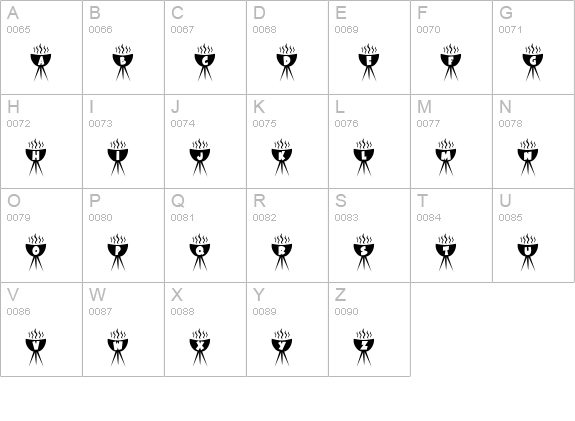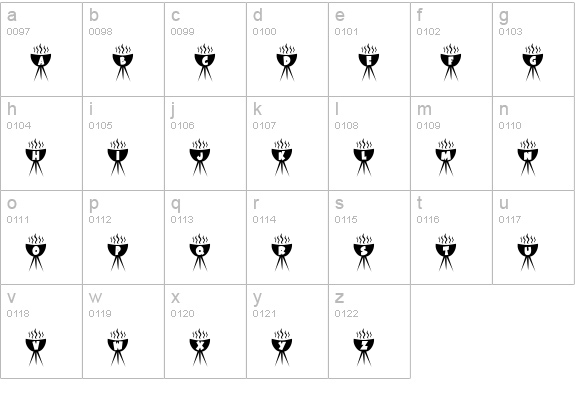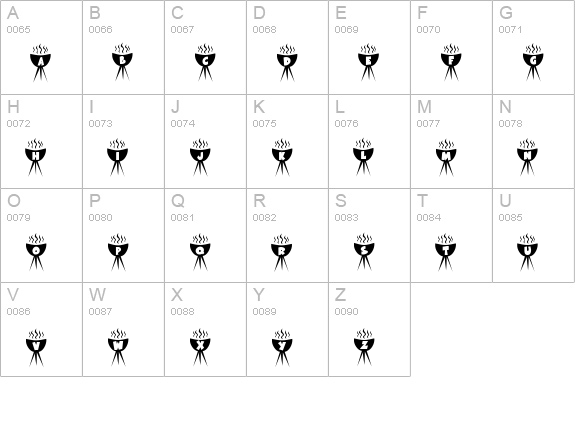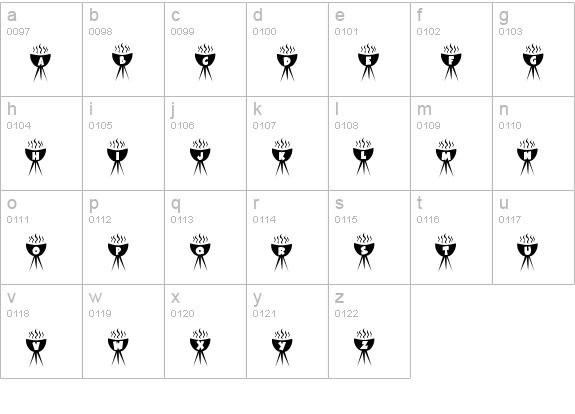
KR BBQ Font Details
Introducing KR BBQ Font, a bold and eye-catching typeface that is perfect for adding a touch of modernity and flair to your designs. This unique font features a stylish and contemporary look that is sure to make your text stand out. With its clean lines and playful curves, KR BBQ Font is ideal for a wide range of projects, from branding and advertising to social media graphics and more. The best part? KR BBQ Font is completely free to download at FontsMarket.com, making it easy for you to add a fresh and exciting element to your design arsenal without breaking the bank. So why wait? Give your projects a boost with the distinctive and versatile KR BBQ Font today!